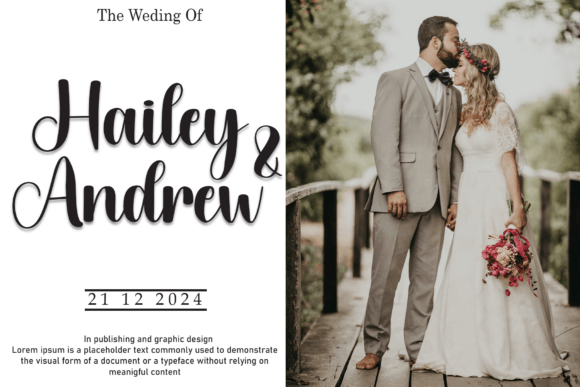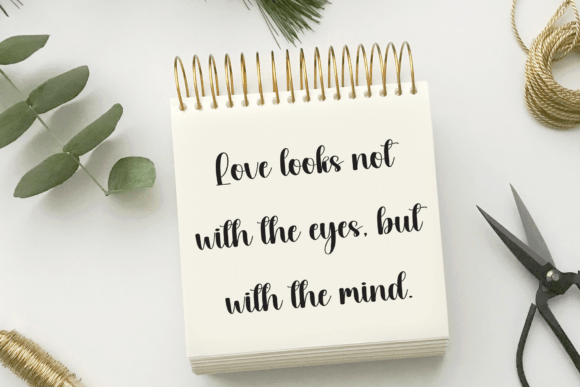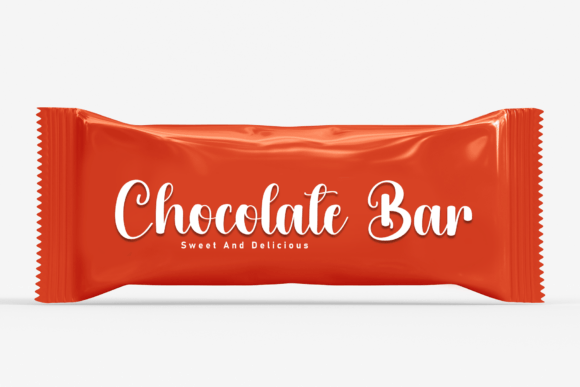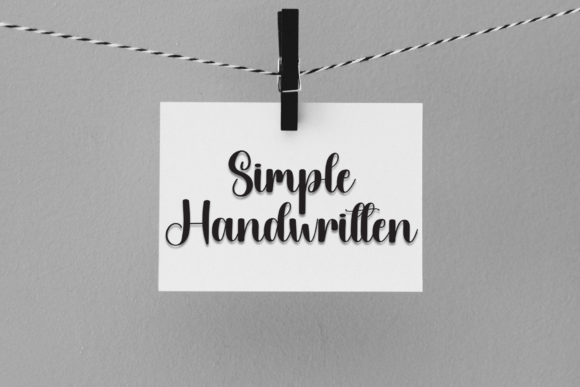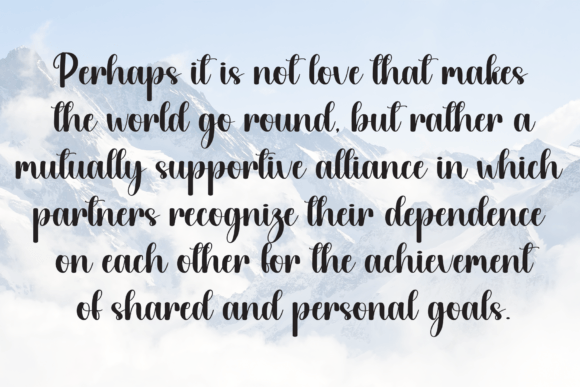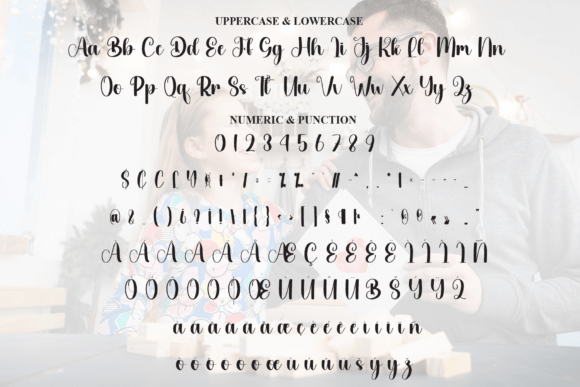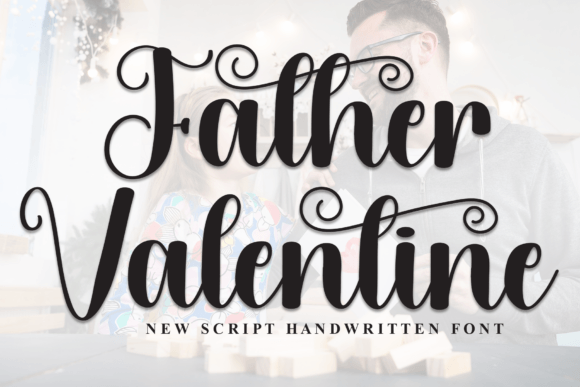
Introducing Father Valentine Font: Elevate Your Designs with Elegance and Charm
In the world of typography, few fonts manage to strike a balance between elegance and modernity as effortlessly as Father Valentine. This stylish handwritten script font has been gaining attention for its unique ability to bring warmth, sophistication, and a personal touch to a wide range of projects. Whether you’re working on branding, invitations, social media content, or any other creative endeavor, Father Valentine Font is an excellent choice for designers and crafters looking to add a refined and charming flair to their work.
The Essence of Father Valentine Font
At its core, Father Valentine Font embodies a perfect blend of classic elegance and contemporary style. Its flowing strokes and organic curves are meticulously designed to evoke a sense of warmth and sophistication. This font doesn’t just convey a message; it tells a story of refinement and effortless charm. The fluidity of its script makes it highly readable, while its unique character ensures that it stands out in any context.
One of the key advantages of Father Valentine Font is its incredible versatility. It’s a font that can seamlessly transition across various platforms and mediums. Here are a few ways you can utilize this versatile typeface:
- Branding: Give your brand a personal touch with a font that exudes elegance and sophistication. From logos to letterheads, Father Valentine can help establish a refined brand identity.
- Invitations: Whether it’s a wedding invitation, a birthday party, or a corporate event, this font can add a touch of class and charm to your invites, making them truly unforgettable.
- Social Media: Stand out on social media platforms with eye-catching posts and stories. Father Valentine Font can help you create engaging content that resonates with your audience.
- Packaging: For crafters and product designers, this font can be a great addition to product labels, packaging, and marketing materials, offering a distinctive and appealing look.
Why Choose Father Valentine Font?
With so many fonts available, what makes Father Valentine stand out? Here are a few reasons why designers and crafters are gravitating towards this beautiful typeface:
- Elegance: Its stylish and elegant appearance makes it perfect for projects that require a touch of sophistication.
- Readability: Despite its decorative nature, Father Valentine maintains high readability, making it suitable for both headings and body text.
- Uniqueness: In a sea of generic fonts, Father Valentine offers a unique character that can help your project stand out.
- Easy to Use: Designed with user-friendliness in mind, this font can be easily integrated into various design software and workflows.
Tips for Using Father Valentine Font Effectively
To make the most out of Father Valentine Font, consider the following tips:
- Pair it Wisely: Combine Father Valentine with simpler fonts for a balanced look, especially in multi-font projects.
- Adjust Size and Color: Play with different sizes and colors to create visual hierarchy and emphasize key messages.
- Experiment with Ligatures: Take advantage of the font’s ligatures for a more natural and flowing script appearance.
Father Valentine Font is more than just a typeface; it’s a design element that can elevate your projects with its elegant and modern charm. Its versatility, readability, and unique character make it an excellent choice for a wide range of applications. Whether you’re a professional designer or a creative enthusiast, Father Valentine offers a simple yet effective way to add a personal and refined touch to your work. So, why settle for ordinary when you can make your designs truly extraordinary with Father Valentine Font?